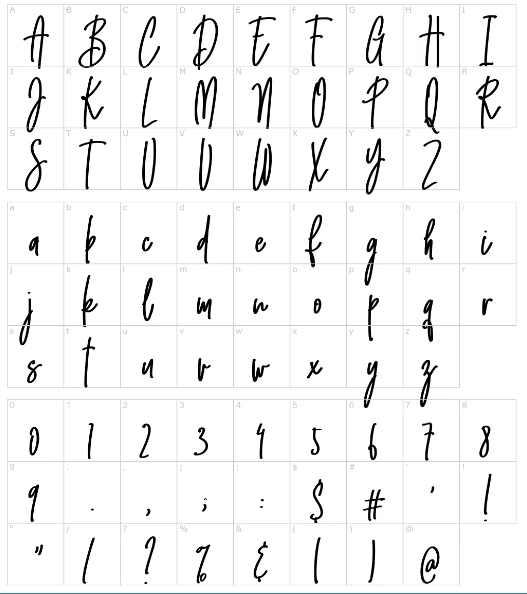
Emma is an attractive handwritten and script font. It’s a contemporary font that may be used for a variety of purposes. This sloppy, doodle-like typeface is a terrific way to give your creations a modern yet relaxed feel. If you need to bring sensitivity to your project, this font is for you. It was created by InkCreativeArt and shared with the public. A semibold handwriting style was used to create this typeface.
This font is ideal for branding, weddings, greeting cards, business cards, packaging, flyers, logos, pictures, books, packaging, posters, invitations, and more. The font is ideal for use in the body of any form of a fashion publication.